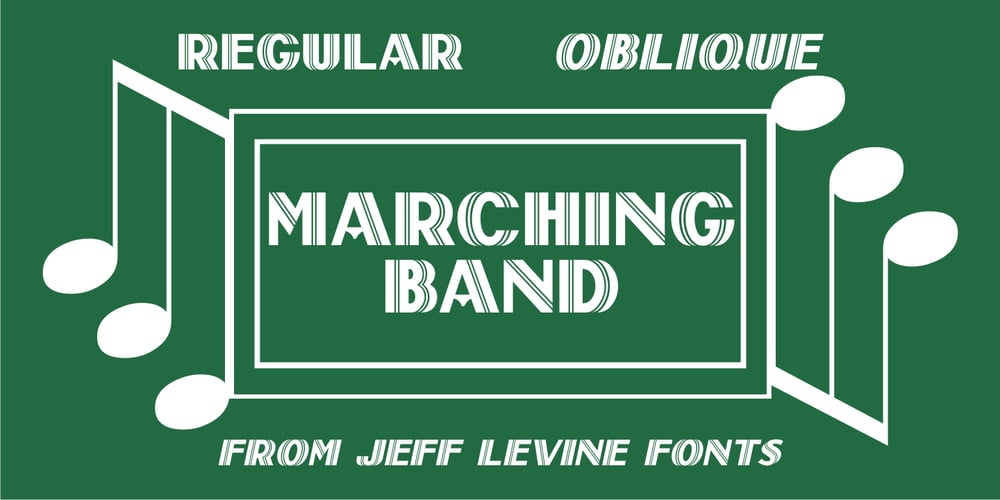
Marching Band JNL
Marching Band JNL font
Marching Band JNL Font Family was designed by Jeff Levine and published by Jeff Levine. Marching Band JNL contains 2 styles and family package options. The cover of “Intermediate Steps to the Band” (an instructional book for marching band originally published by Mills Music in 1947) featured the title in a hand lettered multi-line sans serif with Art Deco influence. Re-drawn as a digital typeface named Marching Band JNL, it is available in both regular and oblique versions.